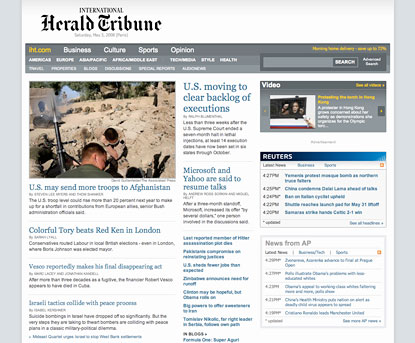
int’l herald tribune
The International Herald Tribune, like The New Yorker (reviewed previously on Typesites), is a print publication with a reputation for good design in the print world; trying to make the same magic happen online.
One thing that immediately sets the IHT apart from most other print newspapers’ websites (including that of its parent company the New York Times) is that the IHT doesn’t seem as much to be trying to look like a newspaper. It employs tasteful gradients, drop-shadows, et cetera; which creates a look similar to a news website, rather than a newspaper who has a website.
That’s not to say that the long history of the newspaper is in any way swept under the carpet. The limited color palette and the conservative Georgia/Arial type choice prevents the site from being too flashy and web two-point-oh-y. Which is a good thing, considering we’re talking about a newspaper that started in the 1880s…
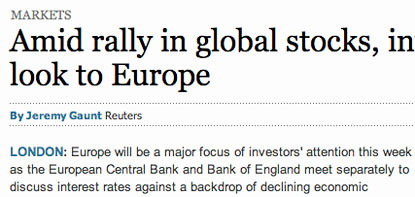
I especially love how the two typefaces on the site play off of each other. Arial is a very neutral, clean typeface. Georgia, on the other hand, has a lot of character, and is probably the best thing to happen to web typography as of yet. However, it’s been used so much lately, and has so much character on it’s own, that it quickly becomes overwhelming if used without moderation.
However, the design manages to keep a great balance between the clean and the character. The same goes for the color scheme. The muted blue and grey are as clean as any Helvetica-ripoff. And they, too, are very well contrasted by the warm yellow text elements spread throughout the design.
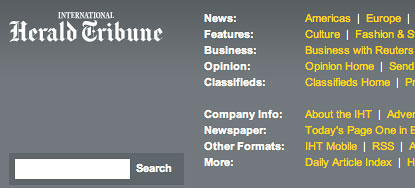
The use of borders on the site is another astonishingly well-performed balancing act. Like Georgia, borders can either make or break a design — and in this case they definitely make it. From the delicate dotted lines in the byline to the concise 1px border around the article to the thick, light gray border of other content boxes—they all work wonderfully with each other. My personal favorite is the thin gray border around the article images. Not quite large or defined enough to be noticed, but enough to help bring out the image.
The body copy is set in a very straight-forward 13px Arial with a line-height of 18px (about 140%), ragged right. The leading does a very good job at making the text readable without going to extremes. You can even choose a three-column view, which shortens the line-lengths a little and makes reading long stories on screen a more pleasant experience.
It should also be said that the site has some of the cleanest code I’ve seen on an online newspaper site.
criticism
The design is not without its faults, though. Firstly, as a result of the IHT trying to take full advantage of the web, the different parts of the site seems to suffer from what I like to call “Restless Website Syndrome”. This occurs when a site pulls content in from an external site, with all the stylistic baggage that the widget brings on. Much of the elegance of the design is ruined by dragging in things like the differently-styled Reuters-box on the front page.
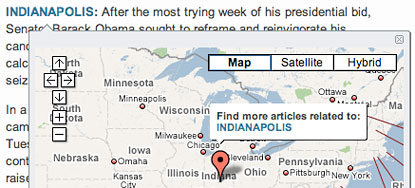
Another example is the (awesome as it may be) function that allows you to click the name of the city from where the story was filed and in turn will launch a Google map and provide you with links to other stories from that city. The problem is that the Google map looks awkwardly out of place in the design; what was a good idea on paper, suddenly becomes a visual problem.
Not only that, but the site overall seems to have too many elements that weren’t fully thought through. The blog section of the site, for instance, still looks a little unfinished to me.
The navigation also captures this unfinished feel, in my opinion. The thick top border looks a little out of place and the three bars, while I see what they are trying to do, remind me of a poorly compressed JPEG.
There are also some minor issues that bug me a little. One of the good things about the standardized RSS-icon is that it can be colored any way you wish. So why did the IHT go for one that clashes so utterly with the warm yellow accent-color?
Then there are the uglies in the body copy itself, such as improper quotation marks and orphans. I’d personally like just a little tighter spacing between the paragraphs to make it a little less blocky.
The design overall doesn’t seem to have as much flexibility as, say, the New York Times website.
conclusion
Overall, the Int’l Herald Tribune has dared do go in a different direction than most other online newspapers, and it has ended up in an elegant and well-functioning design.
However, it seems the fusion of a 121 year old newspaper with Web 2.0 may have been a bit of a challenge. What works on the site works well, and what doesn’t looks cheap and unfinished.
It may be nostalgia, but to me, the old IHT-design (without the drop shadows and gradients, but with the same content) worked better. Perhaps sometimes you can have new function, without the new style.